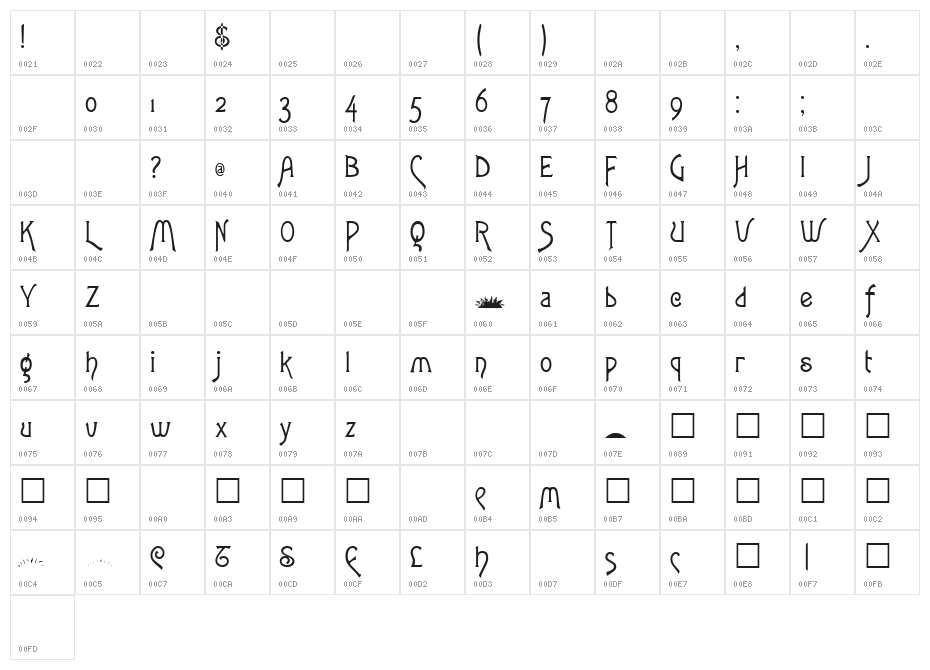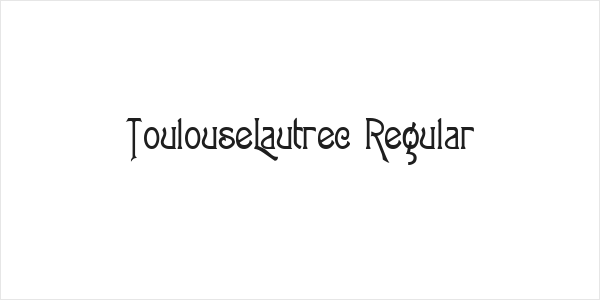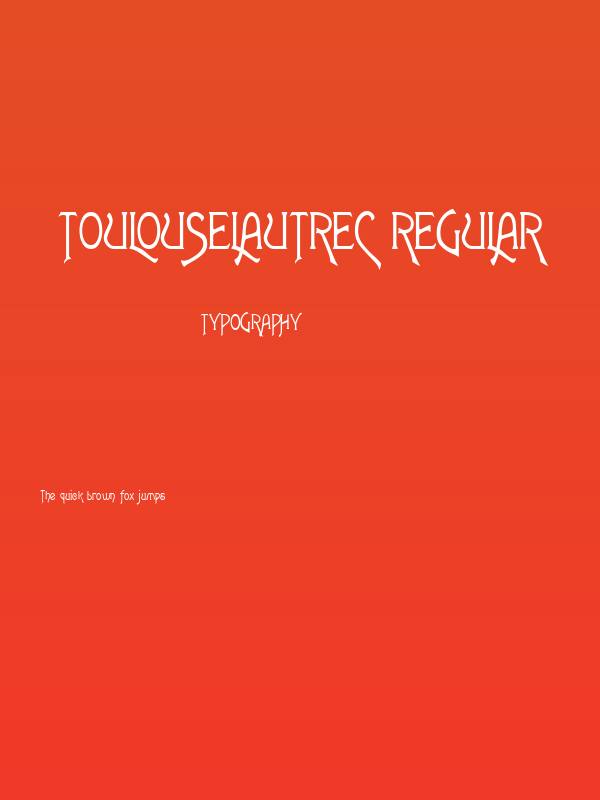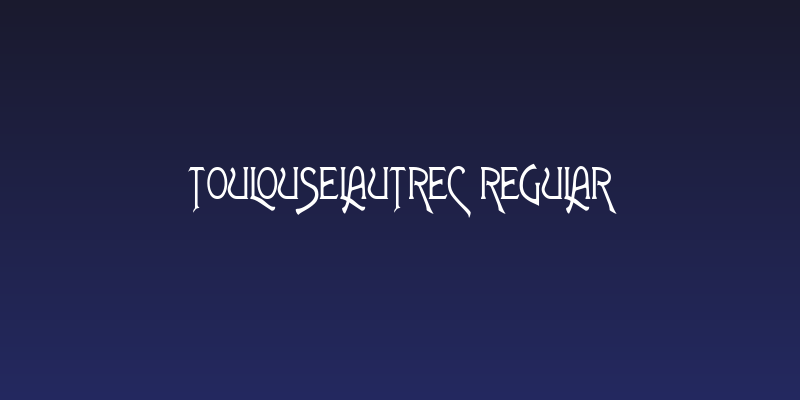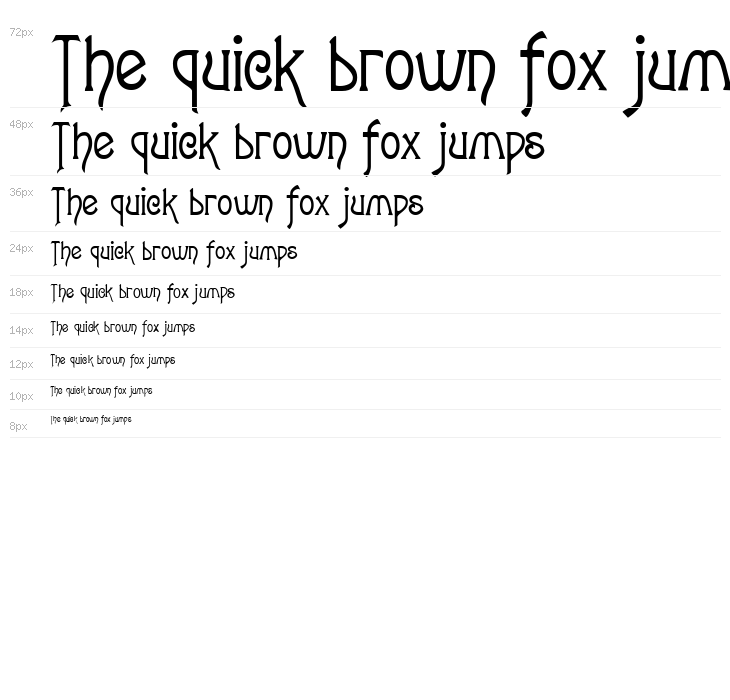
ToulouseLautrec Regular Font
ToulouseLautrec Regular Description
This font features a unique and artistic style, reminiscent of the Art Nouveau movement. The characters are elongated with elegant curves and sharp angles, giving it a distinct and decorative appearance. The uppercase letters exhibit a dramatic flair with extended ascenders and descenders, while the lowercase letters maintain a more subdued yet complementary style. The numerals and special characters follow the same artistic theme, ensuring consistency throughout the typeface. This font is perfect for projects that require a touch of vintage elegance and artistic expression.
| Categories | Art Nouveau |
| Overall Style | Vintage, Artistic |
| Use Case | Headlines, Logos, Decorative text |
| Proposed Projects | Ideal for vintage posters, artistic invitations, branding for creative industries, and decorative signage. |